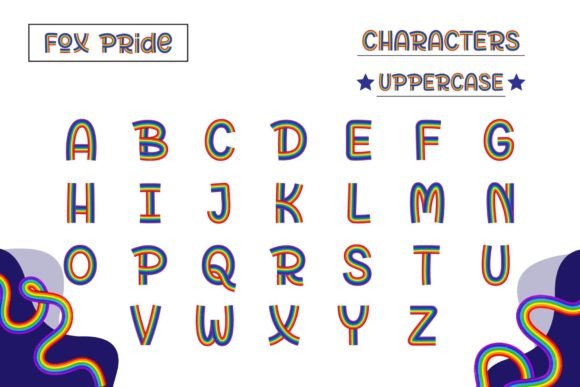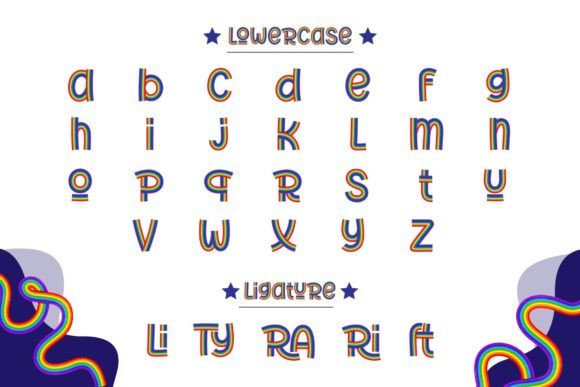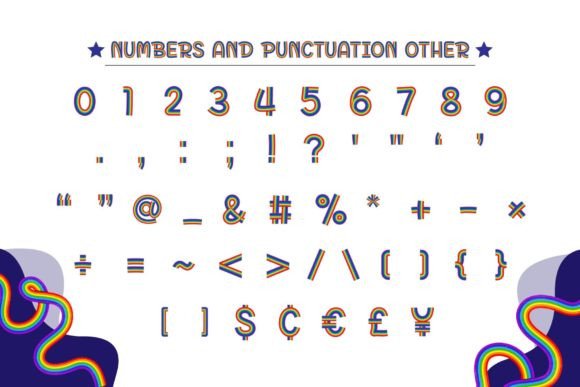
The Magic of Fox Pride Font: A Designer’s Delight
I’ll never forget the moment I stumbled upon Fox Pride Font while working on a project for a client who wanted a playful, rainbow-colored design. I had been searching for the perfect font for hours, but nothing seemed quite right. That was until I saw Fox Pride – a beautiful, cute color font that instantly caught my eye. In this article, I’ll share my experience with Fox Pride, its features, and how to make the most of it in your designs.
My Honest Review of Fox Pride Font
- ✨ Vibrant Colors: Fox Pride Font is a stunning rainbow-colored font that adds a pop of color to any design.
- 🌈 Unique and Playful: This font is perfect for designs that require a fun and playful touch.
The Backstory of Fox Pride Font
Fox Pride Font was designed with the intention of bringing a little joy and whimsy to the world of typography. The designer, inspired by the beauty of rainbows and the playfulness of colorful fonts, created Fox Pride as a way to add a pop of color to designs. Whether you’re a designer, crafter, or creative hobbyist, Fox Pride Font is sure to bring a smile to your face.
With Fox Pride Font, you can add a touch of magic to your designs and make them stand out. Whether you’re a designer, crafter, or creative hobbyist, this beautiful, cute color font is sure to inspire your creativity. So go ahead, get creative, and share your projects with others to inspire them too!